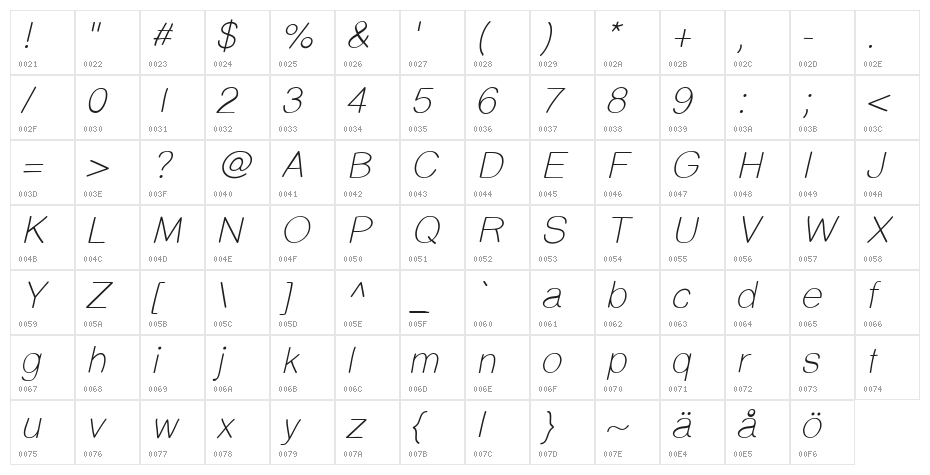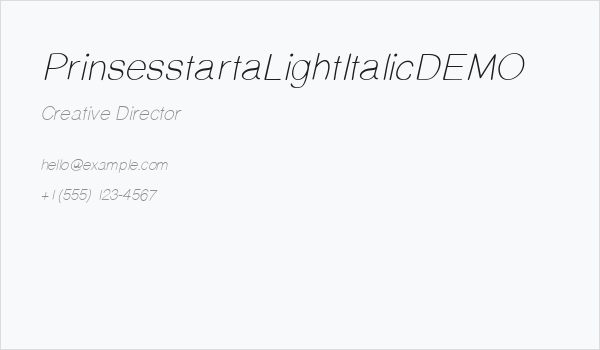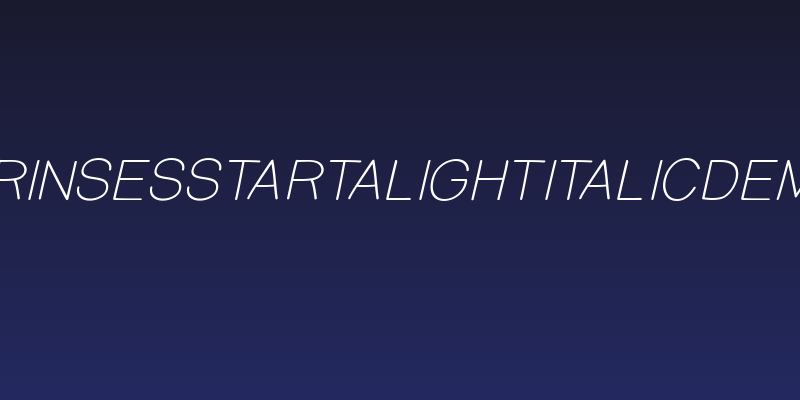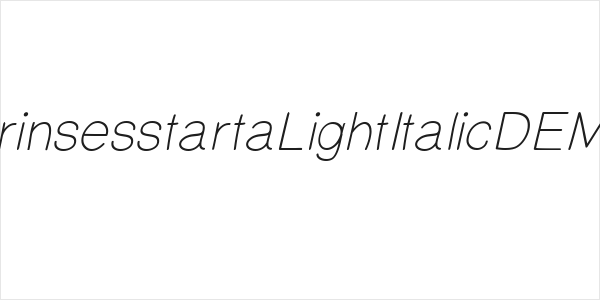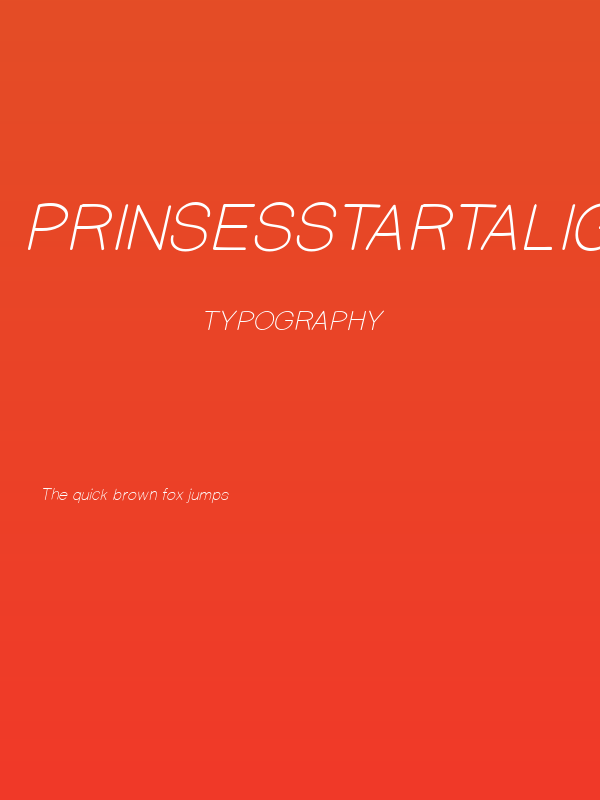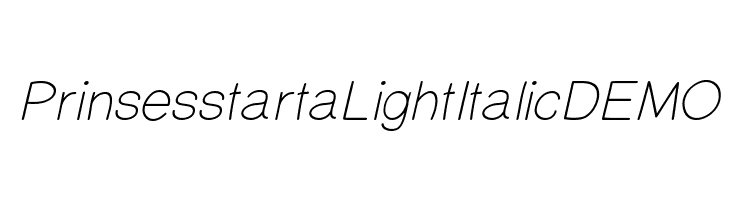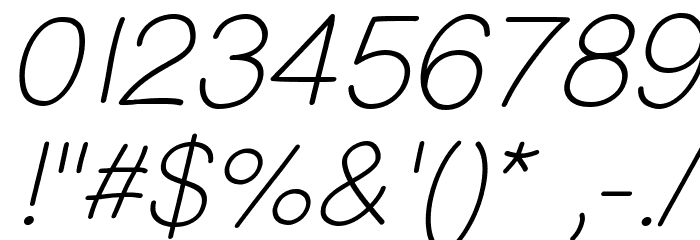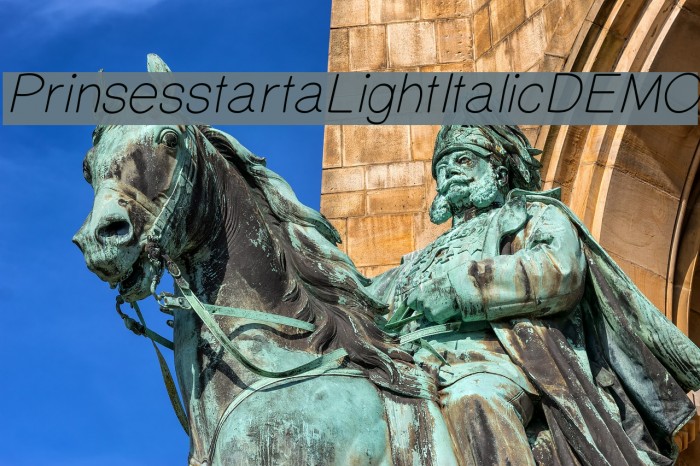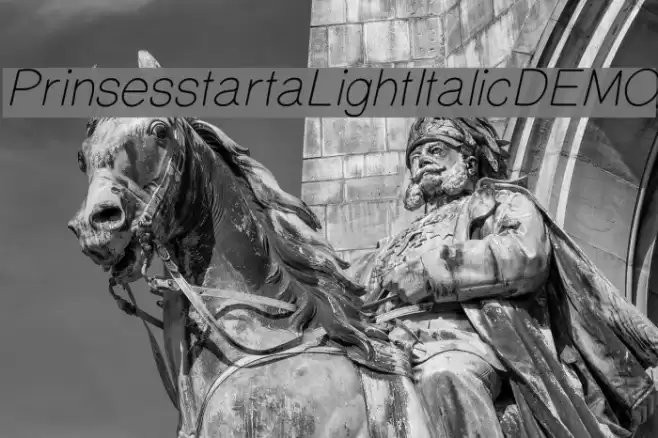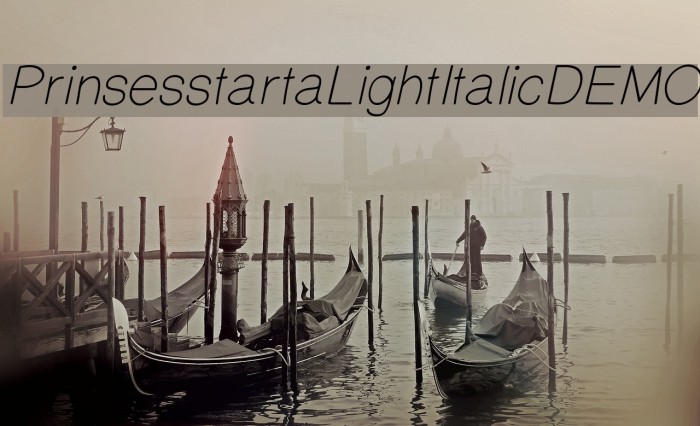
PrinsesstartaLightItalicDEMO Font
PrinsesstartaLightItalicDEMO Description
This font features a sleek and elegant design with a light weight and italic style. The characters are slightly slanted, giving a sense of motion and sophistication. The strokes are thin and consistent, providing a clean and modern appearance. The spacing between characters is normal, ensuring readability while maintaining a stylish look. This font is versatile and can be used in various design projects that require a touch of elegance and modernity.
| Use Case | Headlines, Body text, Logos |
| Proposed Projects | Ideal for fashion magazines, elegant branding, modern websites, and stylish invitations. |